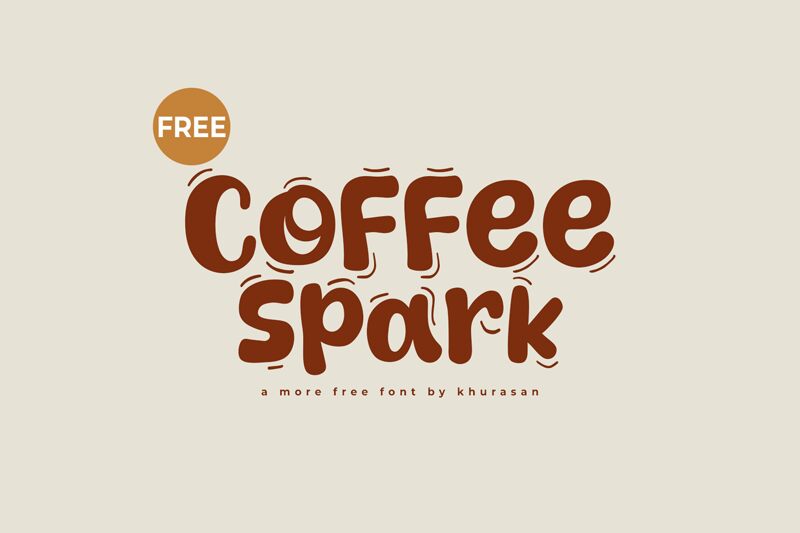
Coffee Spark
Coffee Spark by Khurasan is a bold display font that exudes playful energy with its cartoonish style. Its thick, rounded characters and whimsical flair make it an eye-catching choice for any design that aims to convey fun and creativity.
Perfect for children's books, comic strips, or playful branding materials, Coffee Spark’s distinctive personality ensures your message stands out with a lively charm. Use it to add a burst of character to posters, logos, or packaging designs where boldness and uniqueness are key.
With Coffee Spark, every letter tells a story of joy and imagination.